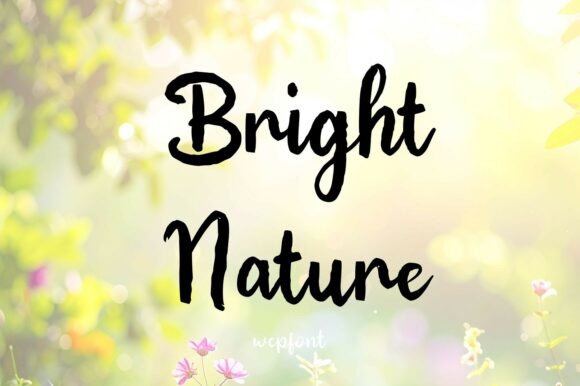
Discover the Beauty of Bright Nature Font
Have you ever been in the middle of a design project, pouring your heart and soul into it, only to get stuck on one thing: the font? I recall a recent experience where I was working on a branding project for an eco-friendly product, and I just couldn’t find the right font that captured the essence of nature and sustainability. That’s when I stumbled upon Bright Nature, a dynamic script typeface that effortlessly combines rich warmth with natural fluidity.
A Personal Review of Bright Nature
- ✅ The effortlessly flowing strokes and linked lines that deliver an unmistakably handcrafted appeal
- ✅ The welcoming and clear form that cultivates an environment of trust and openness
- ✅ Its versatility, making it suitable for a wide gamut of creative explorations that vibrate with vitality and positive energy
- ✅ The organic elegance and feelings of positivity it evokes, perfect for designs that require a touch of natural beauty
- ⚠️ Some users might find the font a bit too script-heavy for certain design projects
- ⚠️ Limited use of uppercase letters, which might not be ideal for designs that require shouting or emphasizing with all caps
- Experiment with OpenType features, such as glyphs and stylistic alternates, to add more creativity to your design
The Story Behind Bright Nature
Bright Nature was designed with the intention of capturing the essence of nature and organic elegance. The designer aimed to create a font that would evoke feelings of positivity and warmth, perfect for designs that require a touch of natural beauty. The font’s effortlessly flowing strokes and linked lines are reminiscent of handcrafted work, making it perfect for designs that require a personal touch.
| Font Name | Bright Nature Font |
| Author | wep – Wahyu Eka Prasetya |
| What makes Bright Nature unique? | Its effortlessly flowing strokes and linked lines deliver an unmistakably handcrafted appeal, making it perfect for designs that require a touch of natural beauty. |
| Is Bright Nature suitable for body text? | While Bright Nature is a beautiful font, it’s best suited for headings and titles. Its script nature makes it more suitable for display text rather than body text. |
| Does Bright Nature support OpenType features? | Yes, Bright Nature supports OpenType features, including glyphs and stylistic alternates, making it perfect for creative designs. |